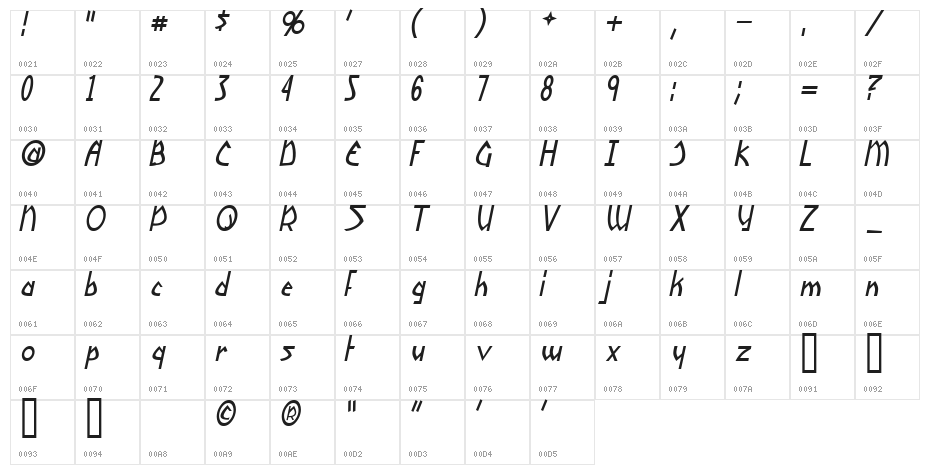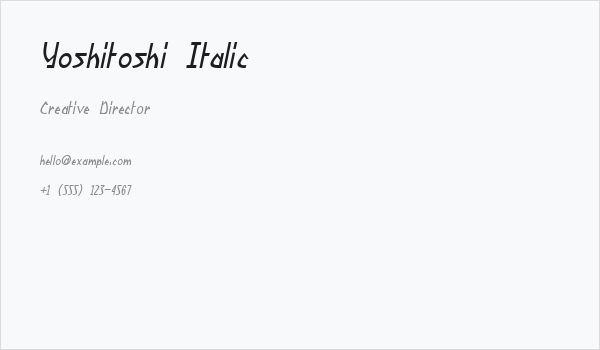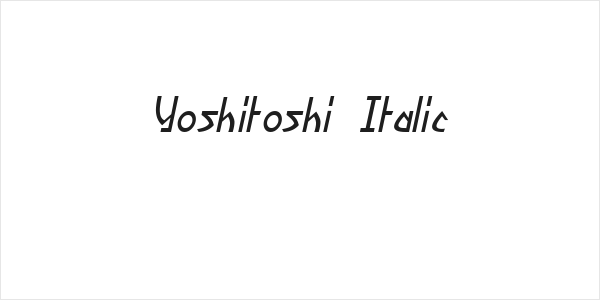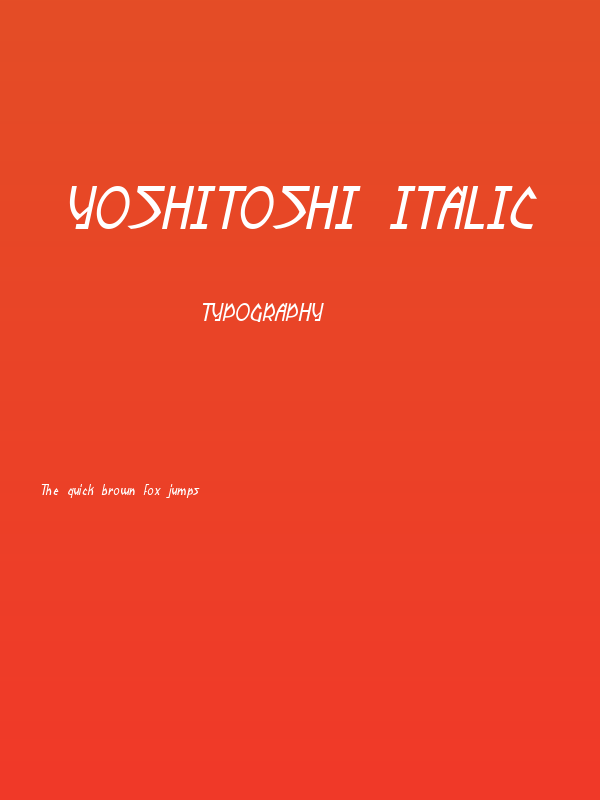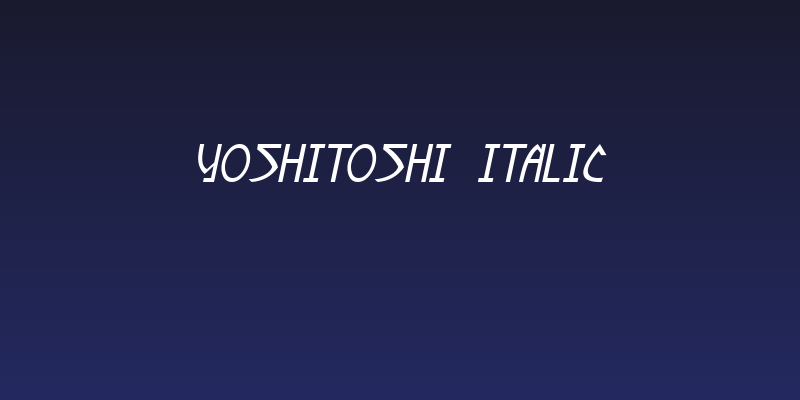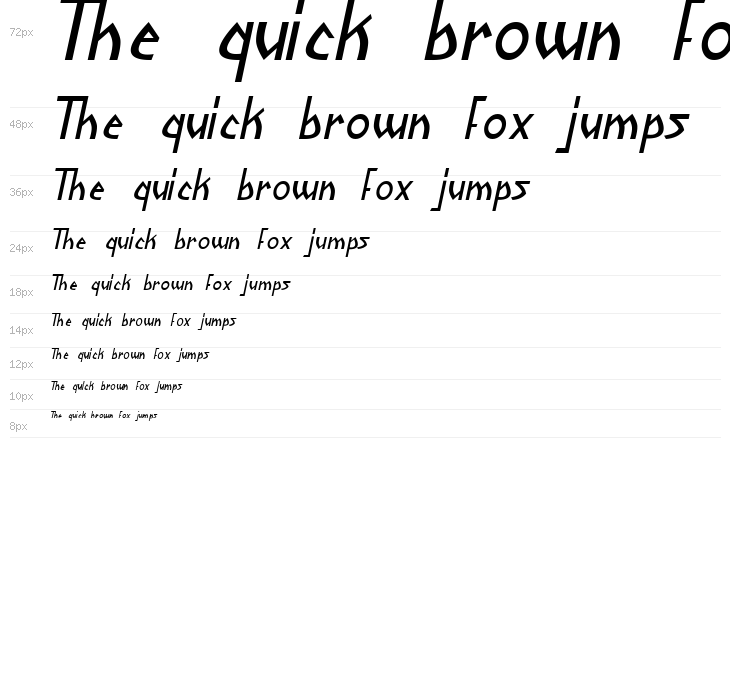
Yoshitoshi Italic Font
Yoshitoshi Italic Description
This font exhibits a dynamic and energetic style with its italicized and slightly slanted characters. The strokes are sharp and angular, giving it a modern and edgy appearance. The uppercase letters are tall and narrow, while the lowercase letters maintain a consistent flow, enhancing readability. The numerals are distinct and align well with the overall design. Special characters are creatively styled, adding to the font's unique personality. This font is well-suited for projects that require a contemporary and artistic touch.
| Use Case | Headlines, Logos, Artistic projects |
| Proposed Projects | Ideal for branding, posters, artistic projects, and modern editorial design. |